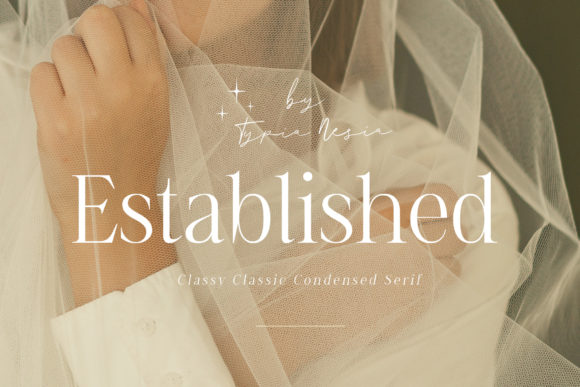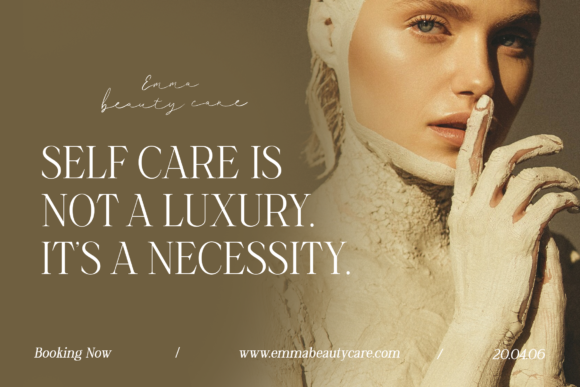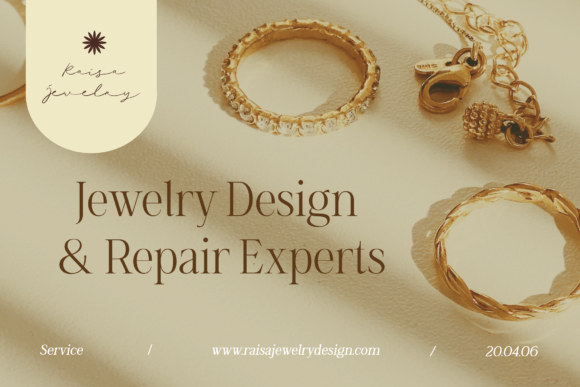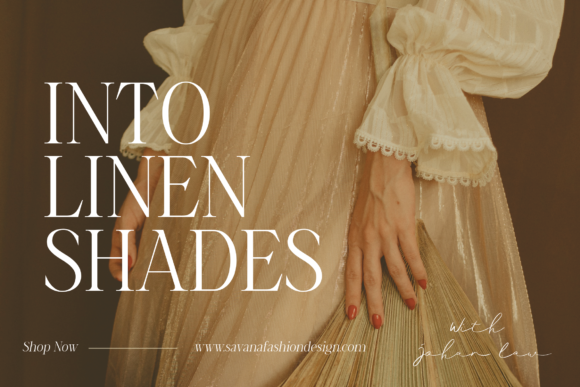
Established Font
About the Established Font
Step up your design game with Established Font, a font that exudes confidence and style. Established – Classy and Elegant Condensed Serif – Beauty Luxury Fancy Modern Font
Established Elegant Serif font is perfect for your upcoming projects. Such as luxury logo and branding, classy editorial design, woman magazine, cosmetic brand, fashion promotional, art gallery branding, museum, history of architecture, boutique branding, stationery design, blog design, modern advertising design, card invitation, art quote, home decor, book/cover title, special events and any more.
Its condensed nature and elegant serifs make Established ideal for headlines, short text blocks, and logos where sophistication is key. It excels in branding for luxury goods, high-end fashion, and upscale events. Avoid using it for lengthy body text or UI elements; its condensed form reduces readability in large blocks of text.
Pairing Established with a clean sans-serif like Helvetica Neue for body copy creates a strong contrast and balanced visual hierarchy. For a more luxurious feel, consider a script font such as Playfair Display for accents or a geometric sans-serif like Futura for a modern edge.
Established projects a feeling of refined elegance and understated luxury, making it perfect for brands aiming for a sophisticated and timeless image.
Established Font Usage Examples
Established Font Example